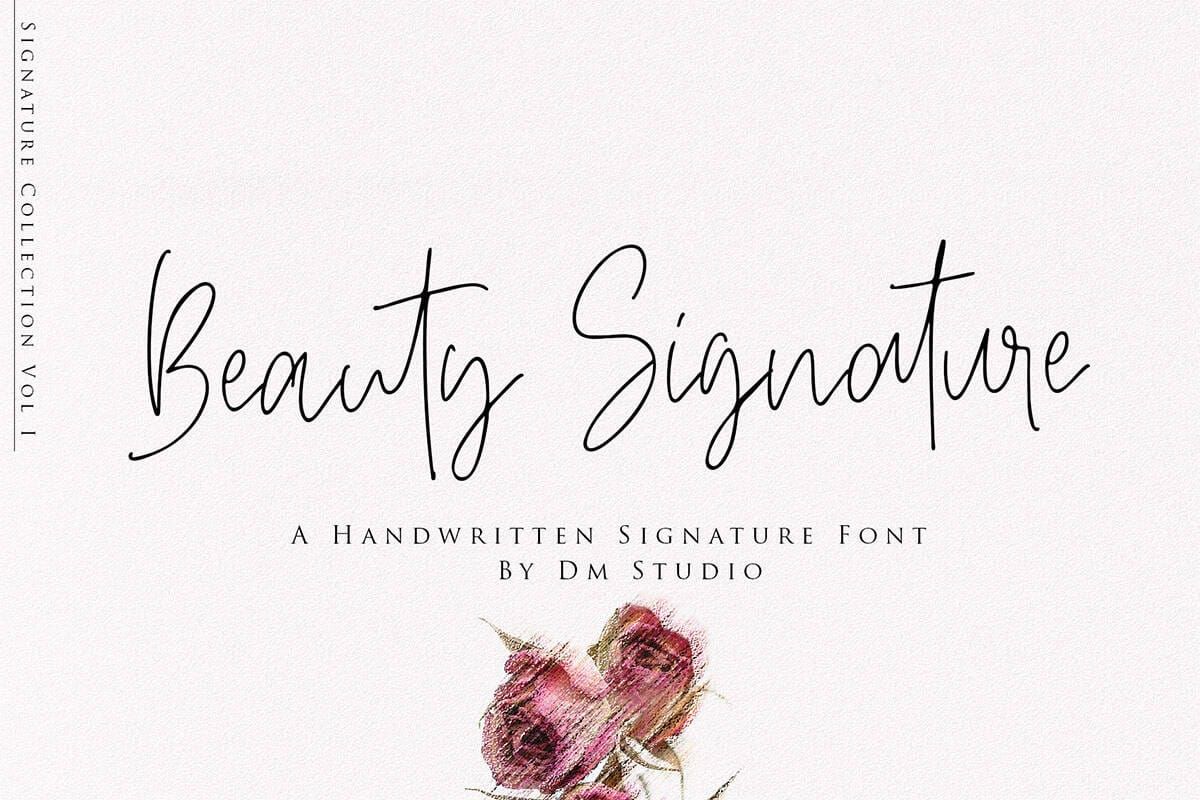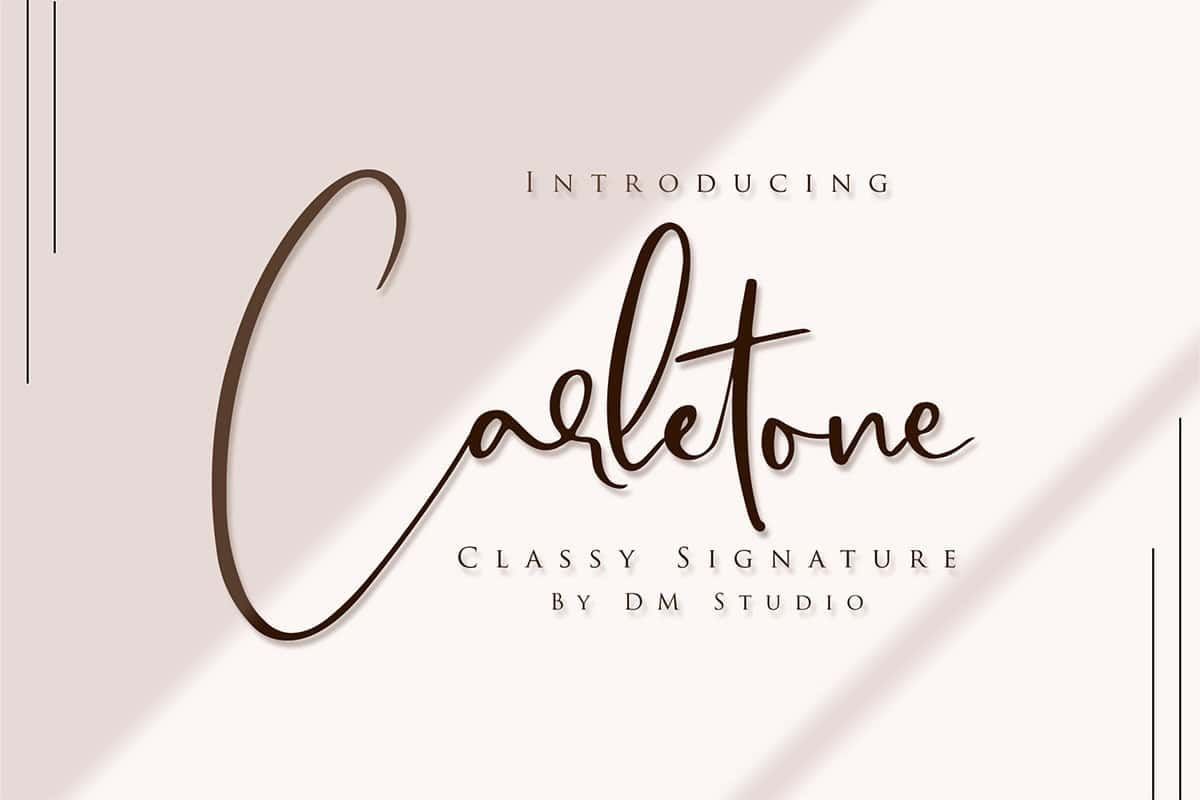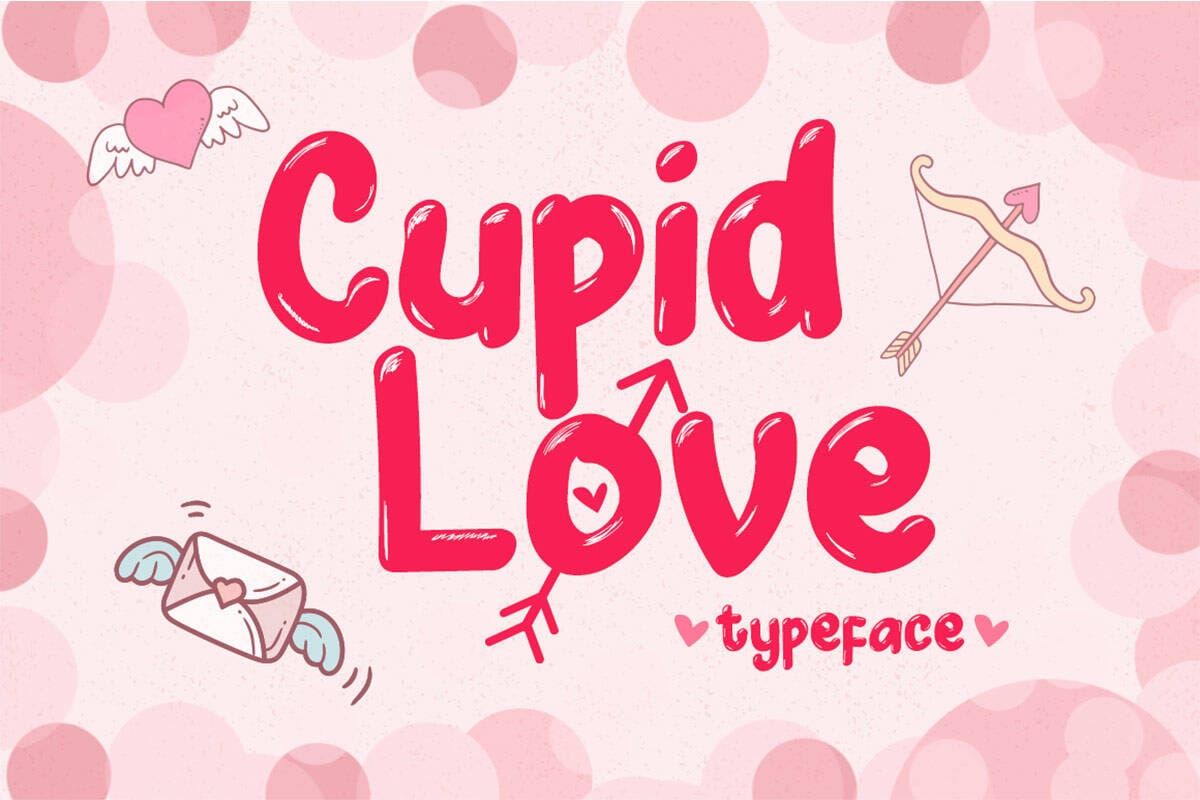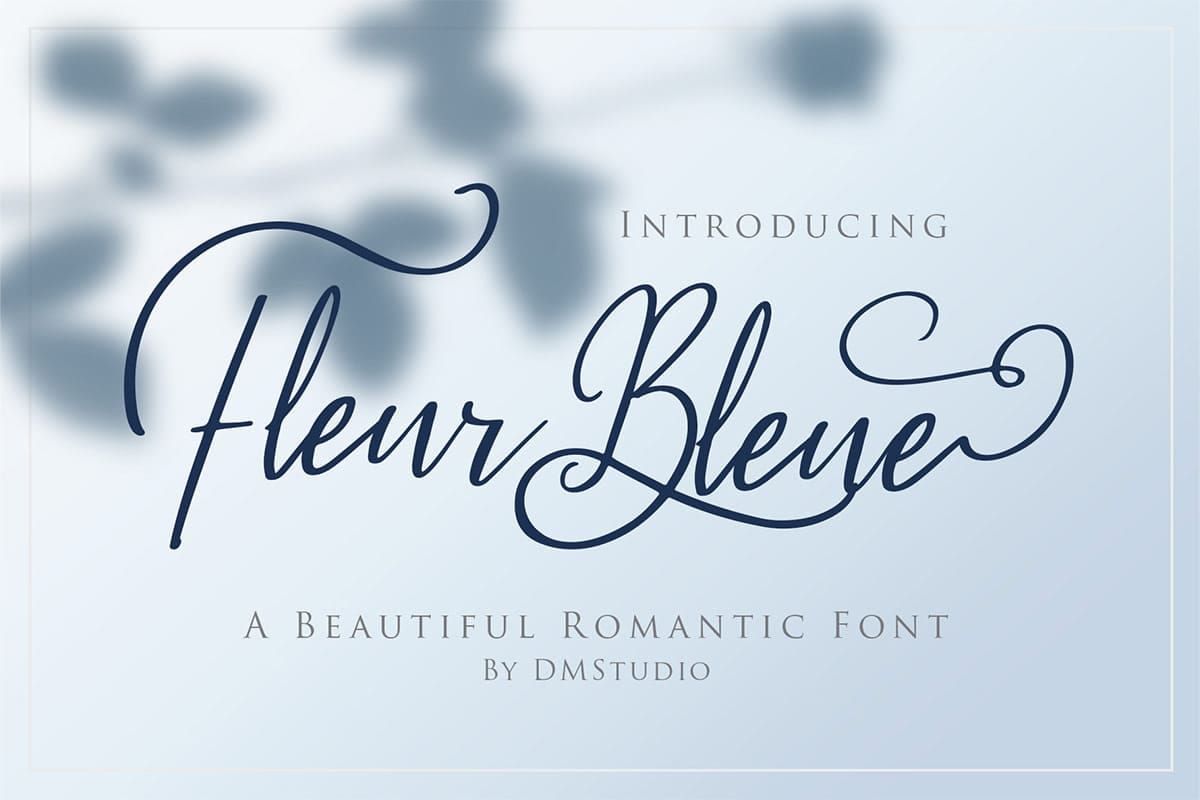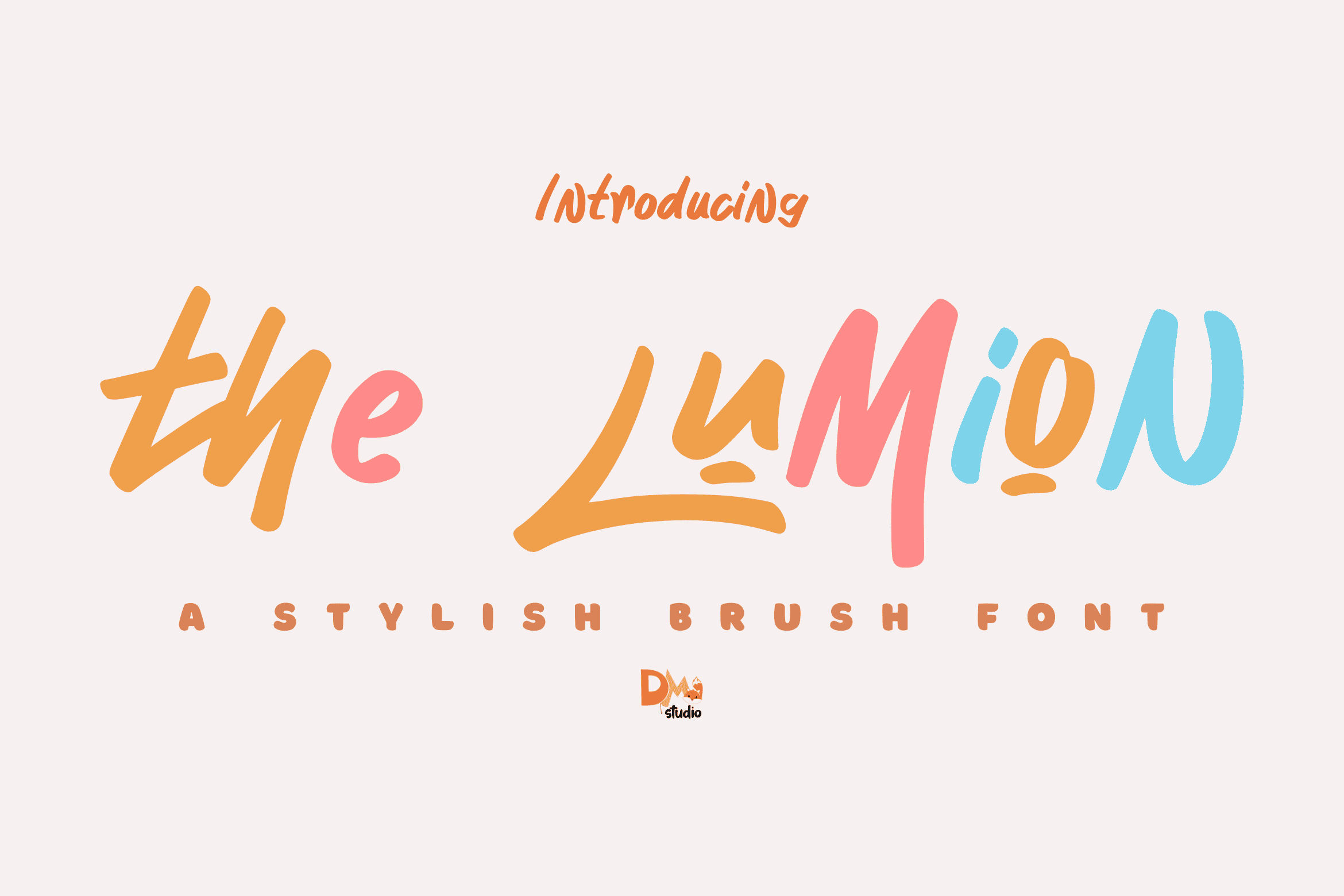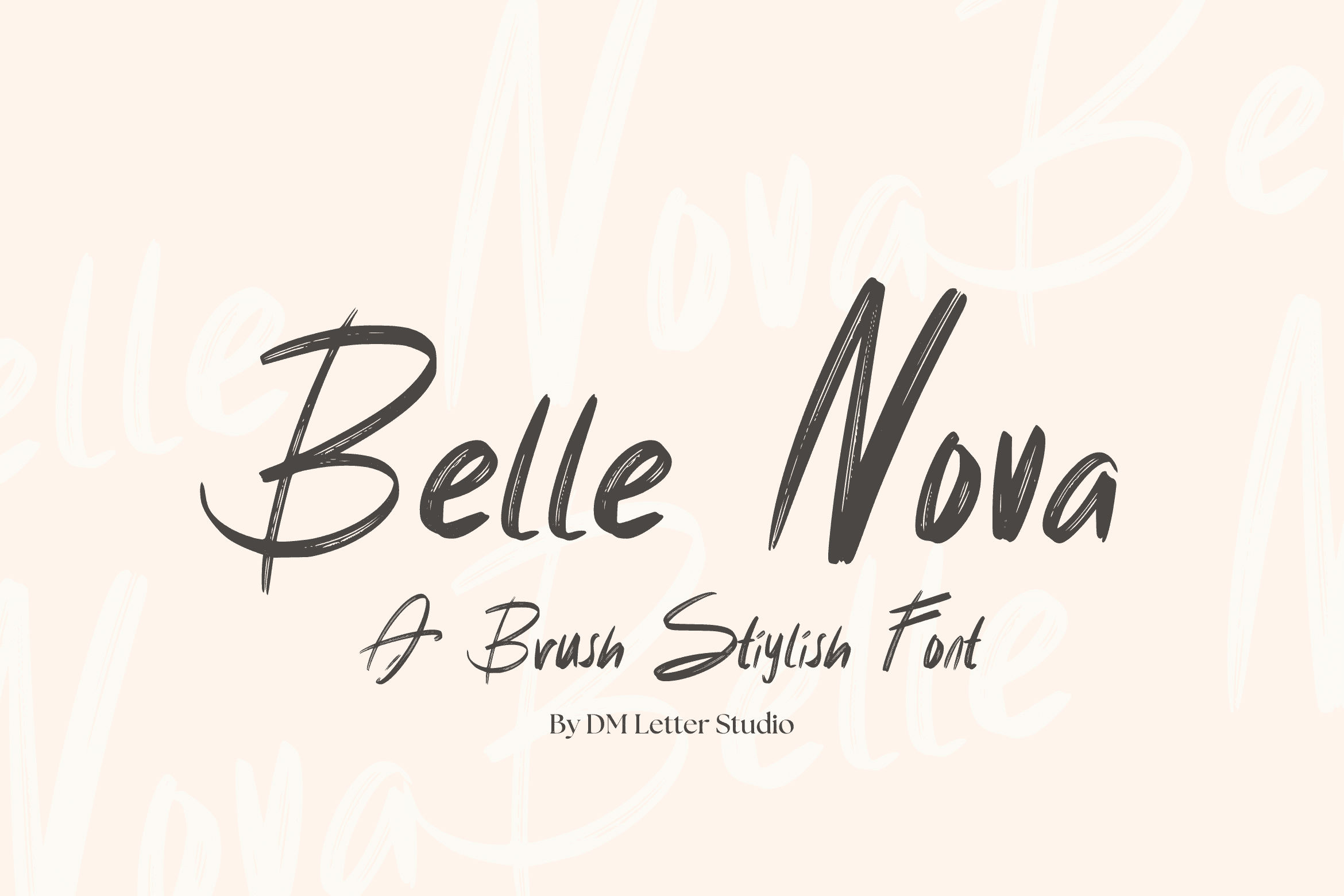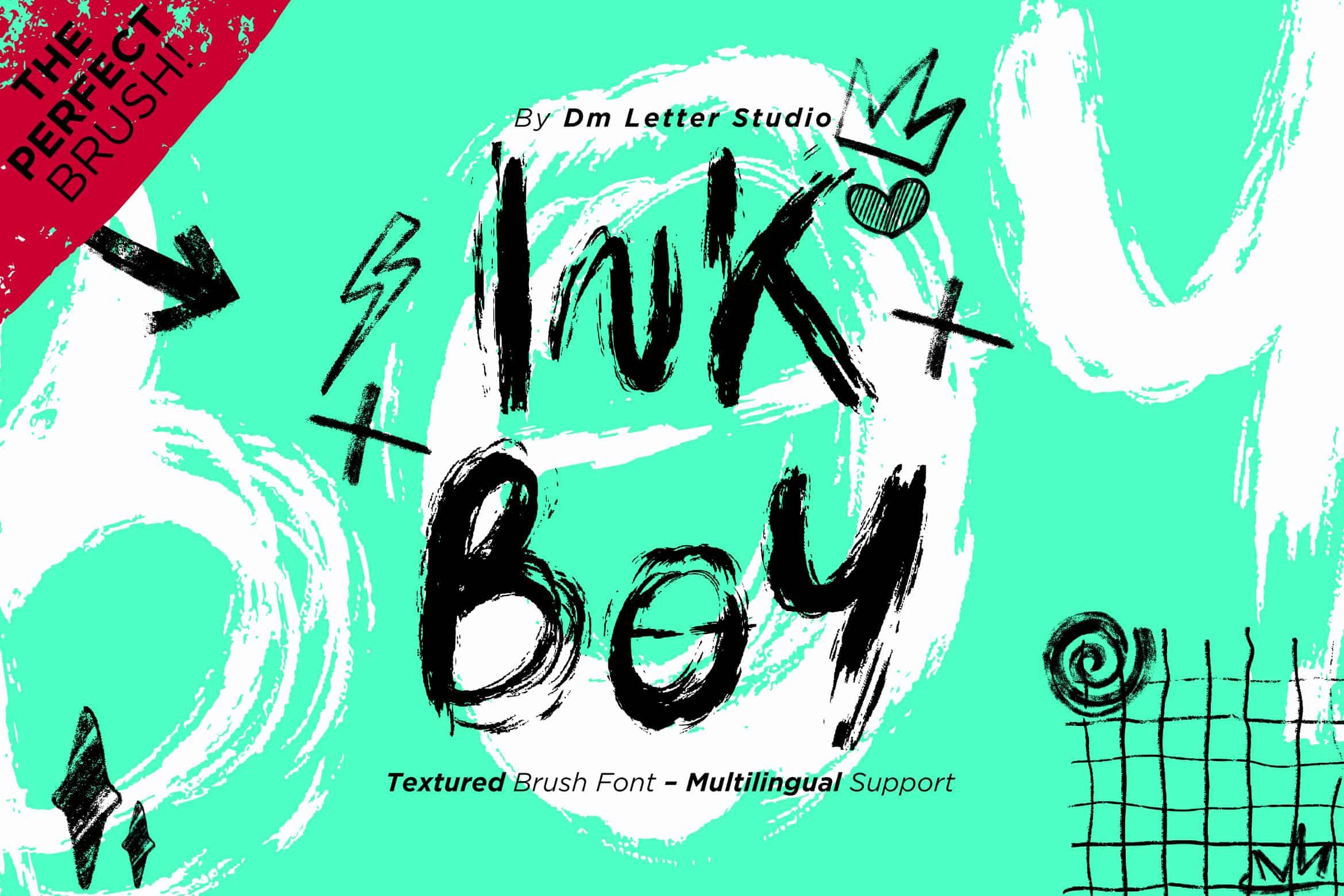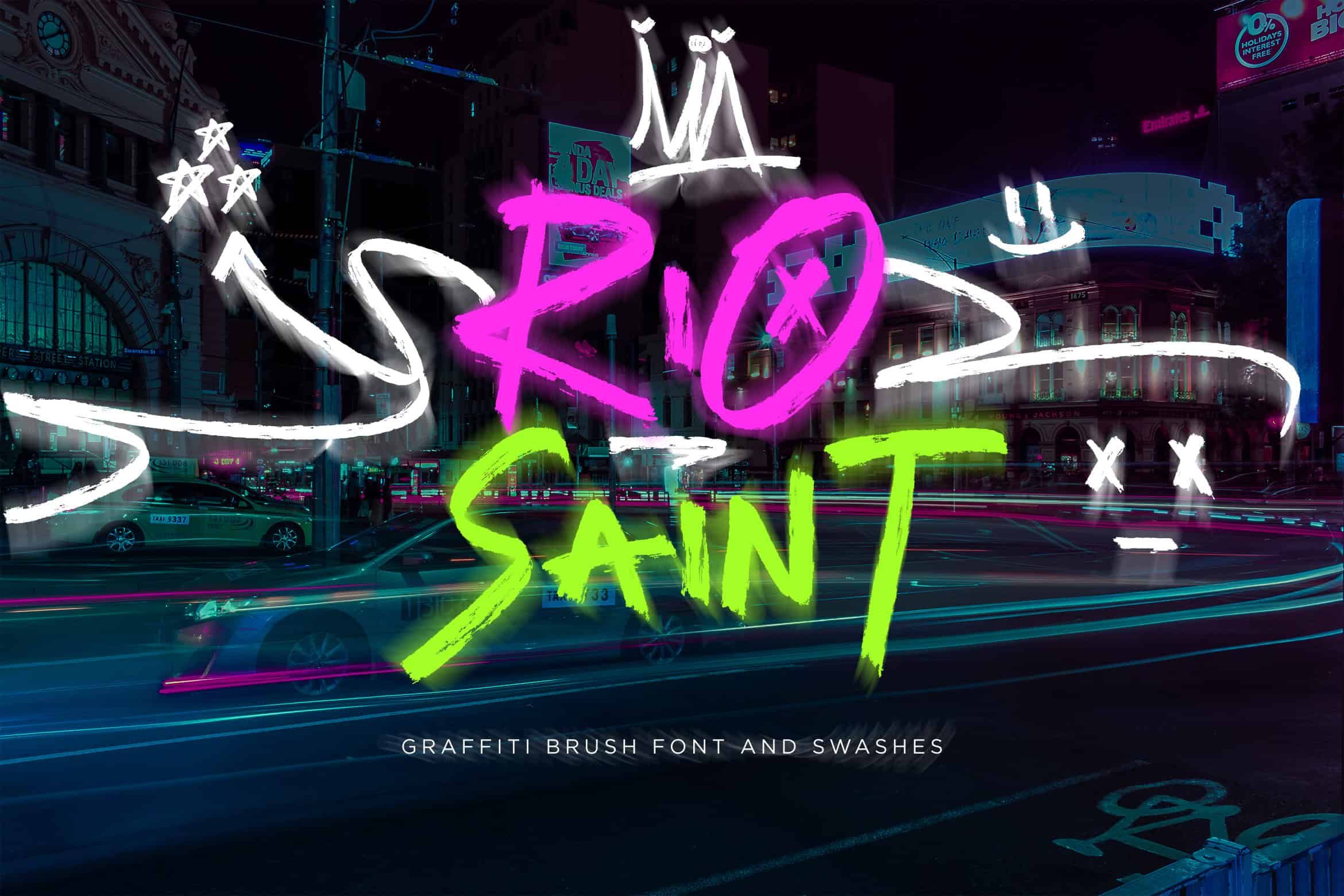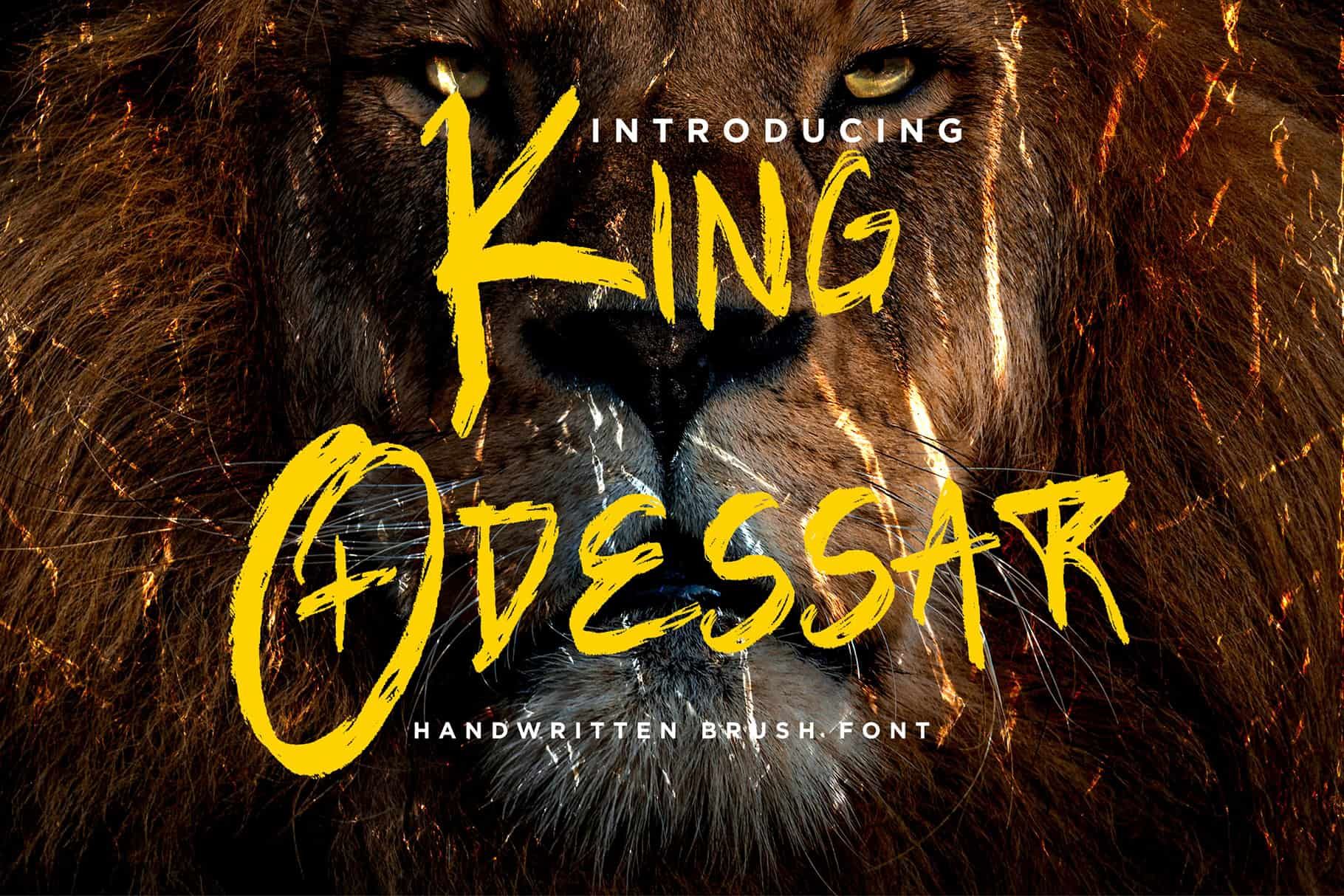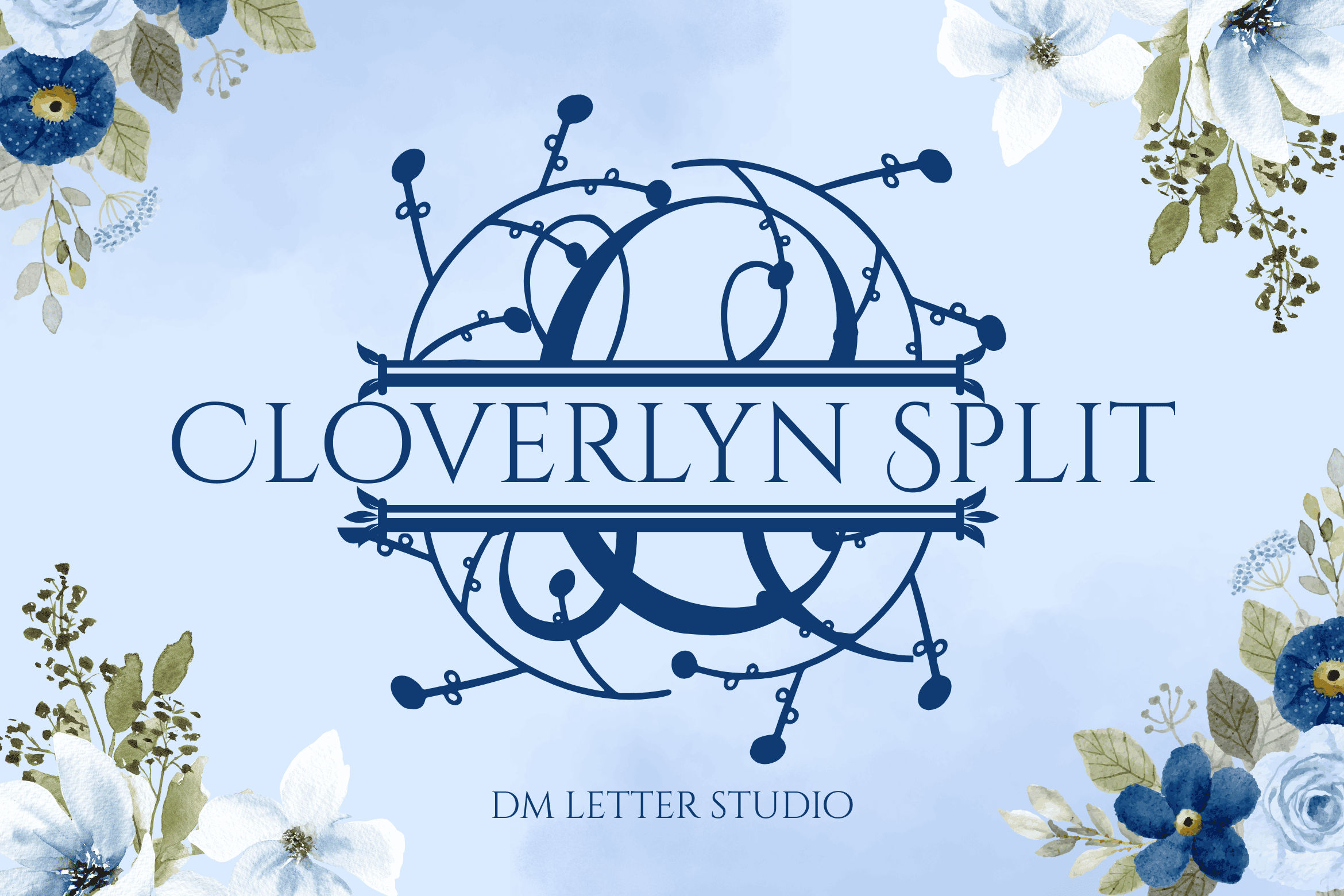
Canva Font Pairings Made Easy: Stunning Combinations That Pop
For social media marketers, content creators, and non designers, Canva has become the go to platform for quick and professional looking designs. But here’s the secret many overlook, your choice of fonts can make or break your design. That’s why learning the art of Canva font pairings is crucial.
By choosing fonts that pair well together, you create harmony, improve readability, and instantly elevate your visual storytelling. In this guide, we’ll explore the best Canva font pairings, break down why they work, and show you how to apply them across your projects.
What Are Canva Font Pairings?
Canva font pairings are combinations of two fonts typically a headline font and a body font that complement each other. These pairings add structure and balance to your design, making sure the message is clear while also visually appealing.
Think of them as a conversation between fonts: one leads (the headline), and the other supports (the body text).
Why Canva Font Combinations Matter
1. Improves Readability
Using fonts that pair well together ensures your text is easy to read across social media, presentations, and ads.
2. Creates Visual Hierarchy
Good Canva font combinations guide the reader’s eye headlines stand out, subheadings support, and body text flows naturally.
3. Establishes Brand Identity
For content creators, consistent Canva font pairings reinforce brand style and professionalism.
10 Stunning Canva Font Pairings That Pop
Here are practical, beginner friendly Canva font pairings you can start using right away.
1. Ink Boy + Belle Nova
• Why it works: Ink Boy’s brush style energy grabs attention, while Belle Nova’s clean lines keep the body text readable.
• Best for: Social media ads, posters, YouTube thumbnails.
2. The Lumion + Rio Saint
• Why it works: Futuristic Lumion headlines paired with Rio Saint’s brushy casual look make designs modern yet approachable.
• Best for: Branding for startups and influencers.
3. Beauty Signature + Sparkling Bright
• Why it works: Beauty Signature adds elegance, while Sparkling Bright glows with personality.
• Best for: Invitations, beauty brands, lifestyle content.
4. Summer Heaven + Beach Crush
• Why it works: Summer Heaven is playful, and Beach Crush adds a bold retro vibe.
• Best for: Seasonal campaigns, travel graphics, summer promos.
5. Cupid Love + Eighties Script
• Why it works: Romantic meets retro, creating a nostalgic but trendy feel.
• Best for: Greeting cards, event posters, Valentine’s campaigns.
6. Altrobyte + Blob Freak
• Why it works: Altrobyte’s futuristic boldness balances Blob Freak’s quirky playfulness.
• Best for: Tech projects, quirky creative portfolios.
7. Graciast + Carletone
• Why it works: Graciast’s elegant script pairs perfectly with Carletone’s luxury serif.
• Best for: Professional branding, upscale social media posts.
8. Sugar Donut + Playlist
• Why it works: Rounded and bold meets handwritten casual. Fun and friendly.
• Best for: Food brands, family friendly promotions, DIY projects.
9. King Odessar + Belle Nova
• Why it works: Dramatic brush headlines balanced with clean modern body text.
• Best for: Marketing posters, bold event campaigns.
10. Cloverlyn Monogram + Fleur Bleue
• Why it works: Decorative monogram styling pairs with romantic serif elegance.